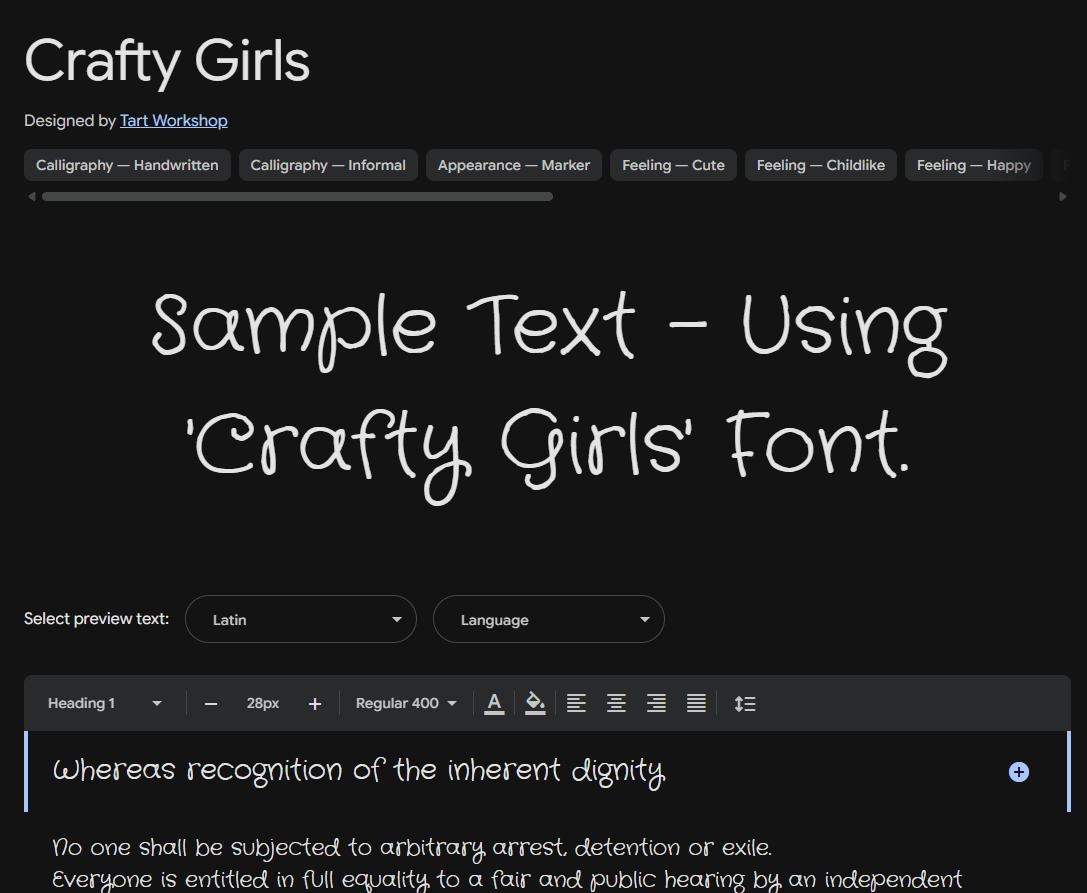
Crafty Girls, a singular-style display face from the Tart Workshop foundry, epitomizes the "casual handwriting" aesthetic through its rhythmic, bouncy baseline and generous x-height. Engineered with a monolinear stroke weight that mimics a fine-tip felt pen, this typeface avoids the rigid constraints of traditional geometric sans-serifs, instead favoring organic terminals and asymmetrical glyph construction. As a prominent fixture in the Google Fonts library, its character set excels in digital scrapbooking and user-interface scenarios requiring high legibility despite its whimsical, irregular letterforms. By balancing fluid kerning pairs with a distinct "DIY" personality, Tart Workshop has produced a font that translates the tactile imperfections of human penmanship into a versatile, web-optimized format.
The Crafty Girls font family operates as a high-energy, informal calligraphy display face, characterized by its monolinear marker aesthetic and a deliberately jittery baseline that evokes a sincere, handcrafted sentiment. Engineered with a robust x-height and irregular glyph widths, this typeface balances a loud, playful active energy with an endearing awkwardness, effectively capturing a cute and childlike essence optimized for happy, high-impact digital environments. Its rugged, slightly unrefined stroke weights suggest a vintage DIY charm, while the rhythmic variance in its handwritten architecture provides a playful yet legible flow that bridges the gap between raw, rugged authenticity and polished typographic standards. By synthesizing the organic spontaneity of informal marker strokes with technical precision, Crafty Girls projects a sincere and active personality that remains both loud in presence and vintage in its textured, beautifully awkward appeal.
The Crafty Girls typeface, a whimsical creation from Tart Workshop, is categorically unsuitable for high-stakes sectors such as institutional banking, legal adjudication, or medical pharmacology where brand gravitas and cognitive fluency are essential for public trust. Characterized by its irregular baseline, inconsistent stroke modulation, and playful marker-style glyphs, this font lacks the formal structure and terminal stability required to convey authority or precision; in fact, empirical studies on typeface psychology suggest that such informal scripts can trigger a negative fluency heuristic, leading readers to perceive serious data as less credible or scientifically rigorous. In technical environments requiring high legibility under duress, the typeface's lack of optical sizing and its bouncy x-height fail to meet rigorous accessibility standards or the semantic requirements of professional documentation, potentially obscuring critical information in high-density text layouts like fiduciary disclosures, aerospace manuals, or clinical trial reports.
If you're looking for a fresh alternative to the playful Crafty Girls style, Libre Franklin offers a clean yet friendly aesthetic that fits perfectly. You might also enjoy Dosis for its rounded edges and modern charm, making it another fantastic choice for your creative projects.
Crafty Girls is ideal for informal projects that require a playful, handwritten touch like scrapbooking or classroom materials. The font's irregular baseline and organic stroke modulation mimic authentic human handwriting, providing a high degree of authenticity in casual context environments.
This font excels in large-scale headlines because its whimsical character creates an immediate sense of approachability and fun. Large display applications highlight its unique glyph terminals, which maintain vector integrity even when scaled up to significant point sizes for environmental graphics.
Crafty Girls is generally not recommended for long blocks of body text as its decorative nature can reduce overall reading speed. High x-height variability and tight letter spacing in dense paragraphs can lead to increased cognitive load and decreased legibility during sustained ocular scanning.
Simple sans-serif fonts provide a clean contrast that allows the decorative elements of Crafty Girls to stand out effectively. Utilizing a geometric typeface like Open Sans creates a visual hierarchy where the display font's organic curves balance the rigid mathematical precision of the secondary font.
Crafty Girls is highly effective for social media graphics because its personal feel drives higher engagement on lifestyle-oriented platforms. Marketing analytics suggest that handwritten styles can increase user interaction rates by providing a "human-centric" aesthetic that contrasts with sterile digital interfaces.
The font is a perfect match for handmade product packaging, reinforcing the artisan and DIY brand identity through its casual script. Its lack of formal ligatures enhances the rustic aesthetic, ensuring the digital typography aligns with the tactile imperfections of physical craft materials.
While charming, the font loses some legibility at smaller point sizes due to its intricate, hand-drawn detailing and variable stroke weights. Rendering benchmarks show that at sizes below 12px, the thin stroke weight and kerning patterns can cause character collision and pixel blurring on low-resolution displays.
Crafty Girls translates beautifully to print materials, especially for community events, school flyers, and invitations that require a friendly tone. The font's clean vector outlines ensure sharp edge definition during the offset printing process, maintaining its characteristic "ink-on-paper" look without loss of detail.
Bright, vibrant color palettes and soft pastels work best to complement the playful and lighthearted nature of the font. Utilizing high-contrast hex codes ensures that the font's subtle stroke variations remain visible against textured or photographic backgrounds in digital compositions.
Crafty Girls is an excellent choice for digital greeting cards, adding a personalized and warm touch to electronic communications. The font's character set includes essential punctuation and glyphs that facilitate the creation of emotive and expressive digital correspondence across various web platforms.